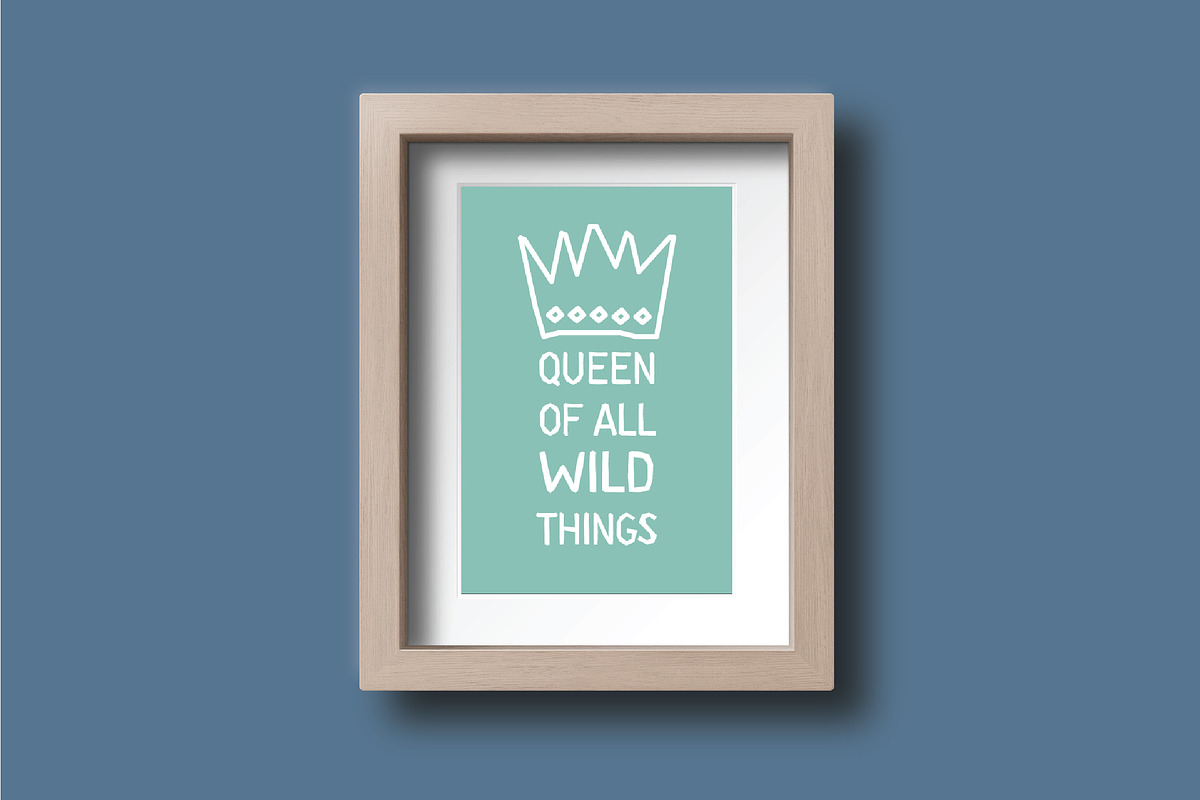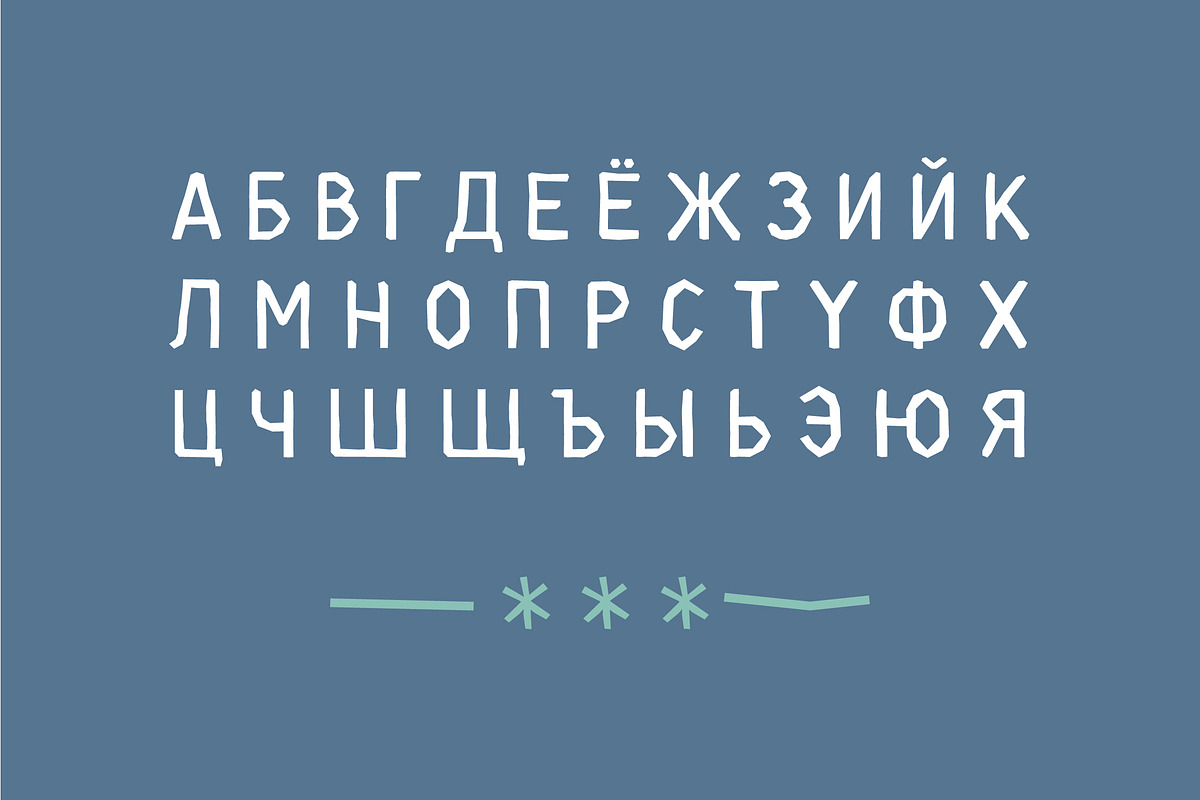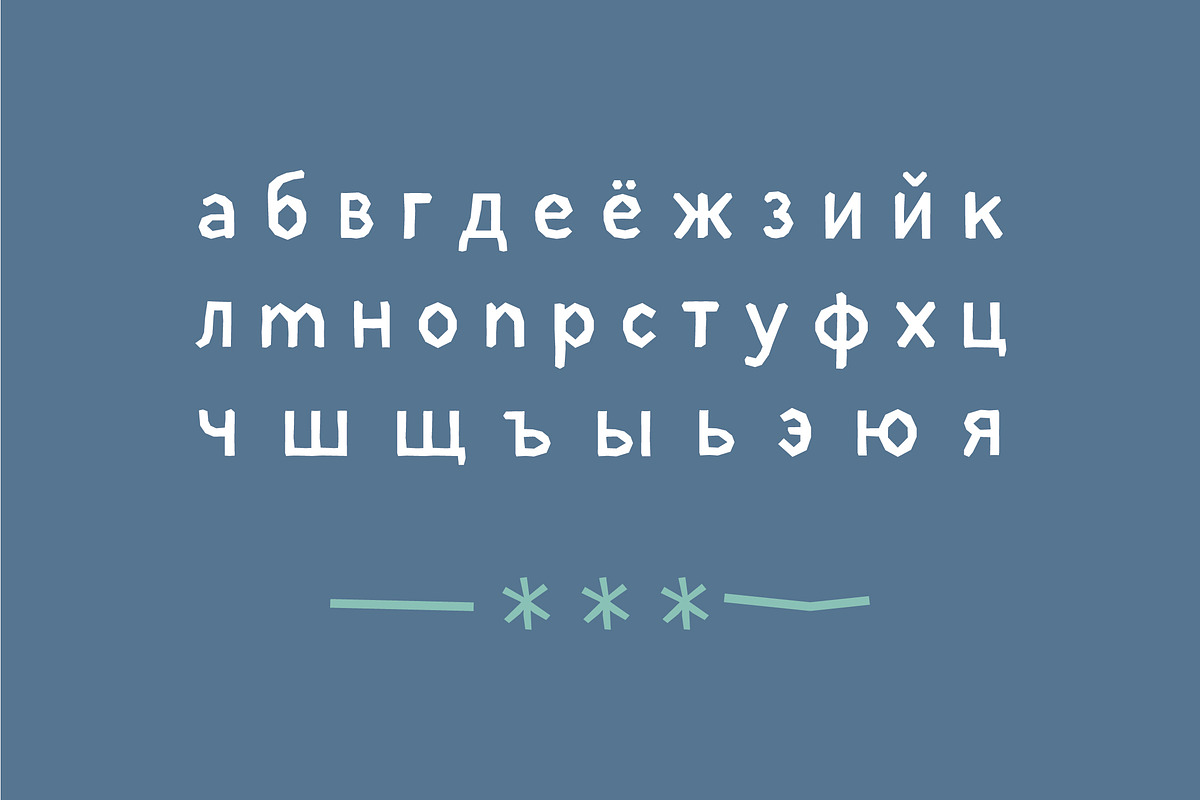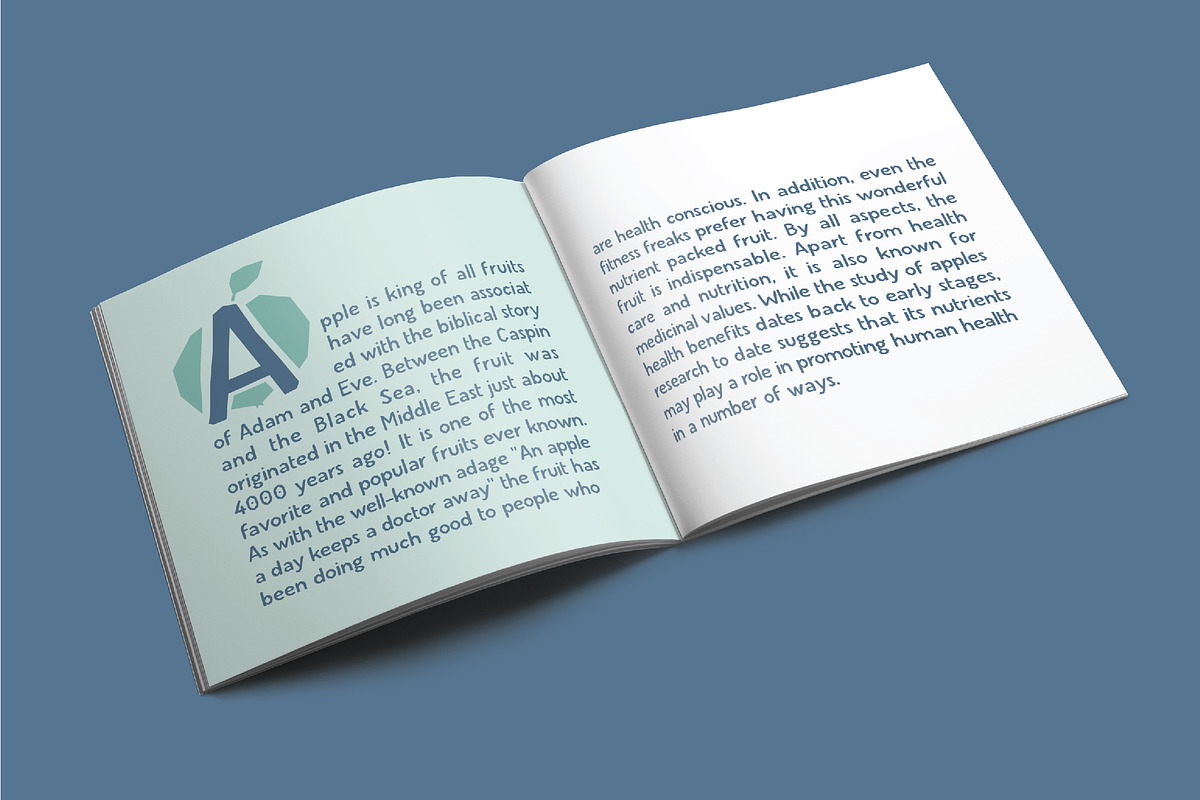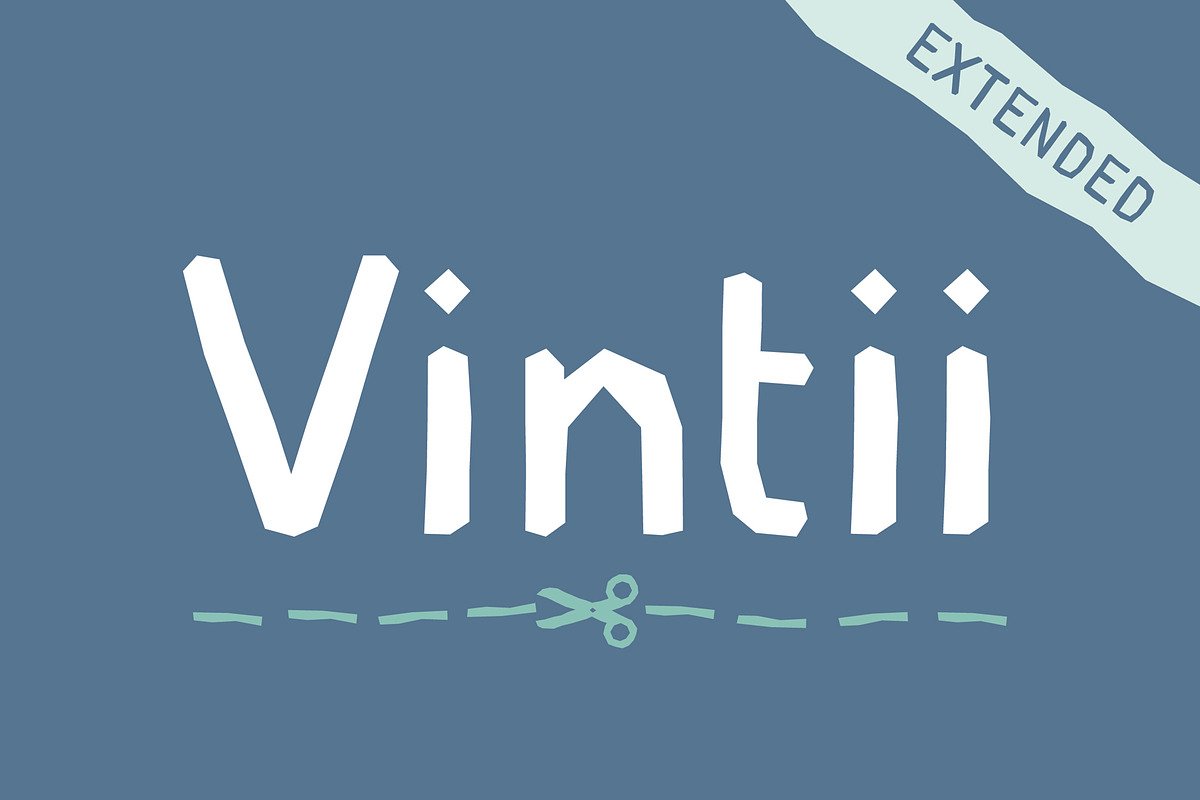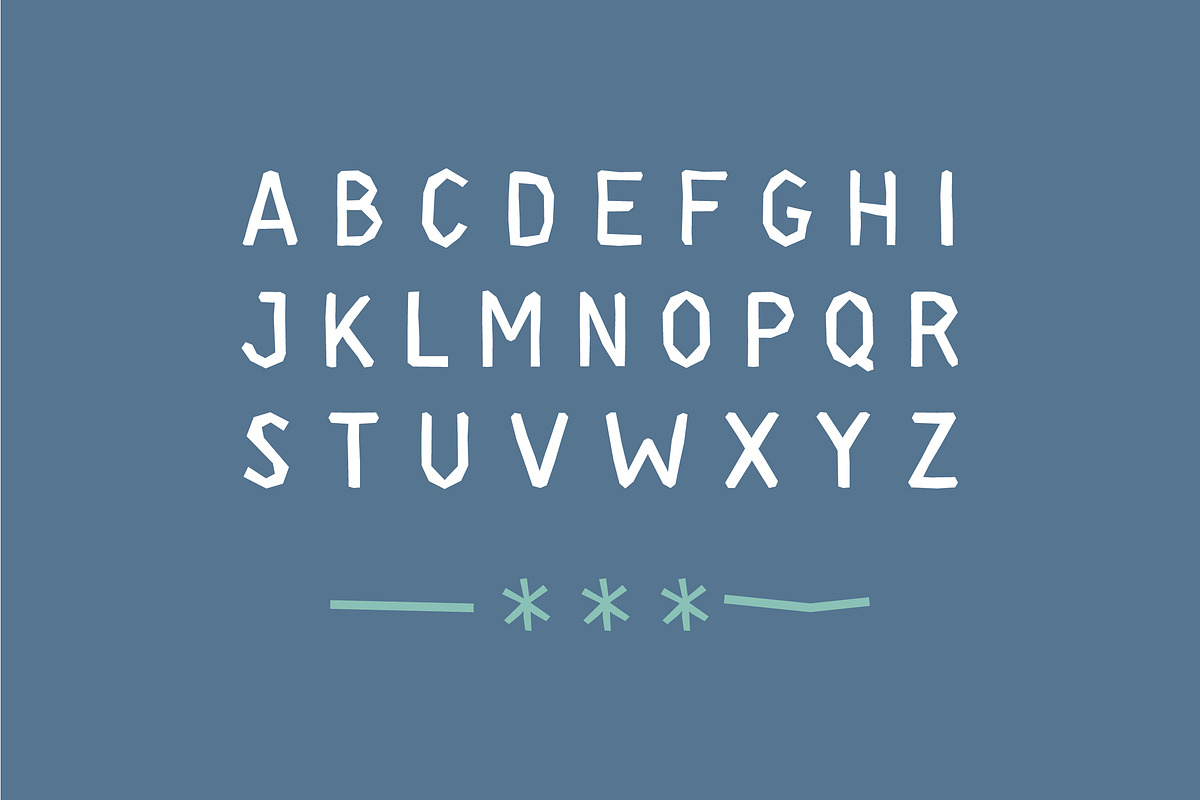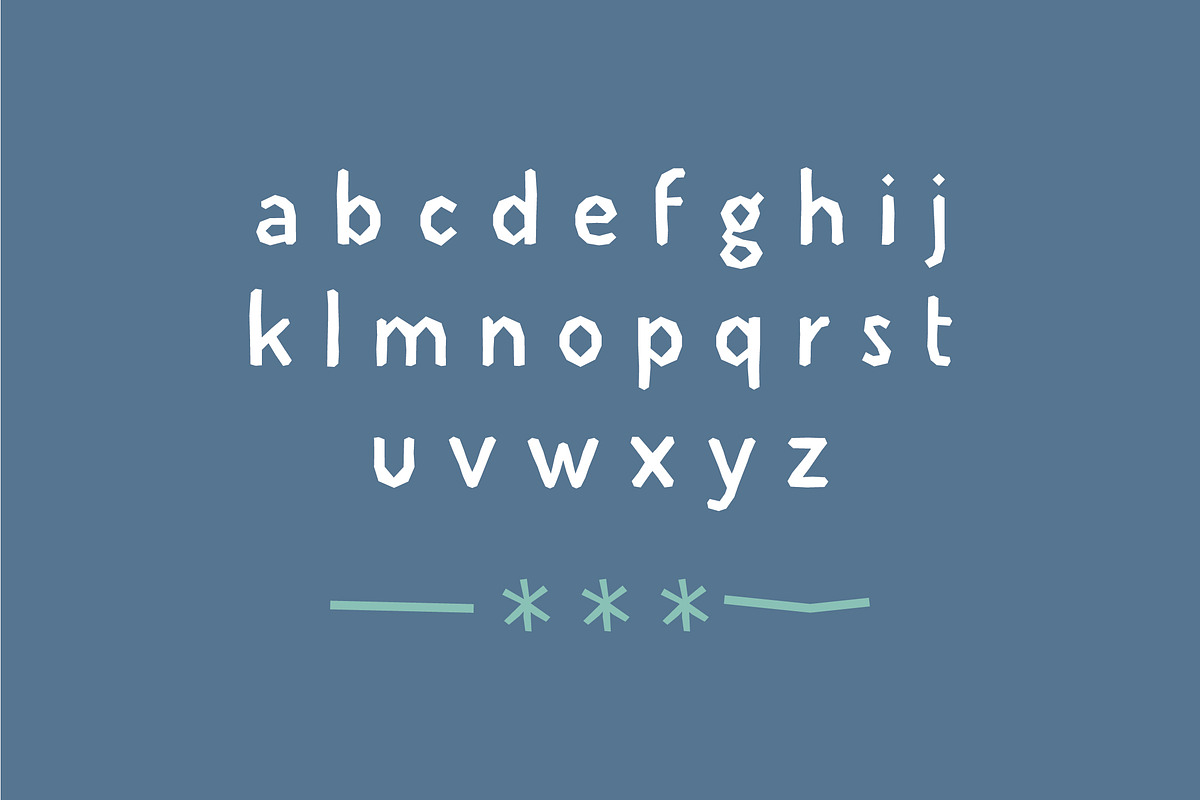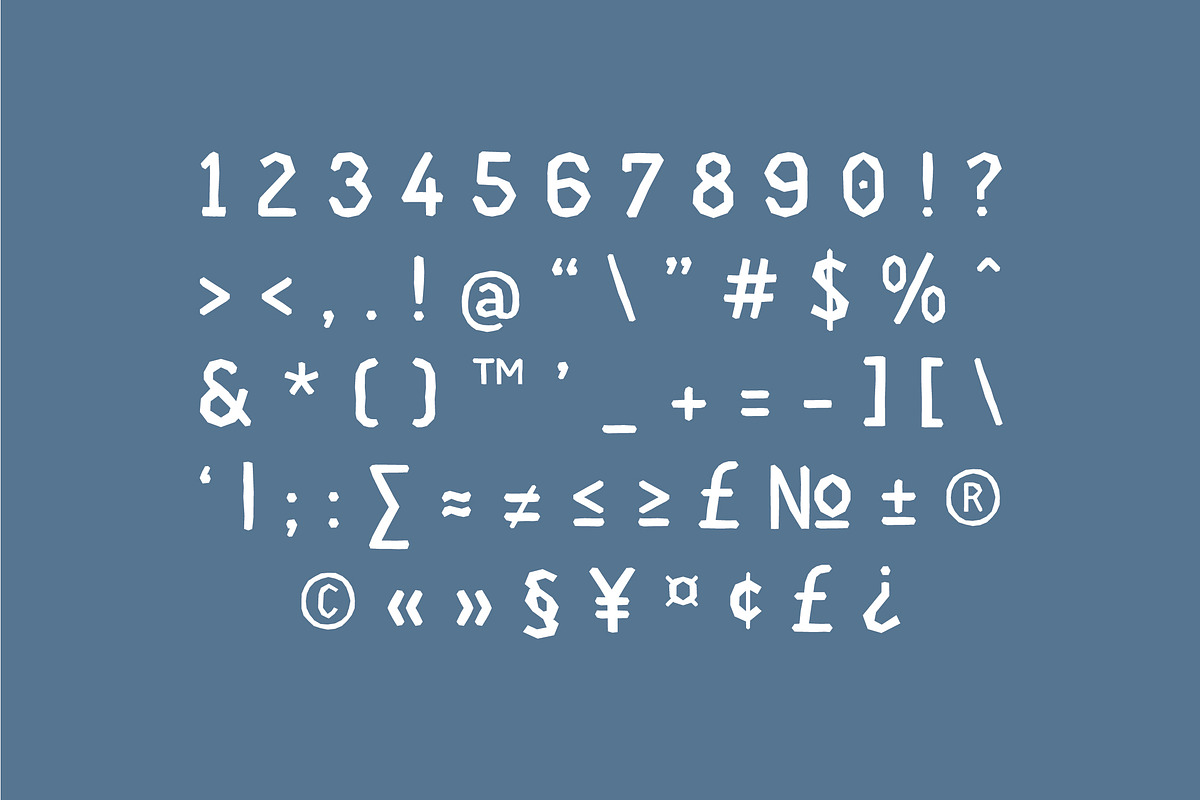
Vintii extended font
Vintii extended is decorative cut-out font. Inspiration for this font comes from paper and scissors - bold, fun and asymmetric letter forms. This font is great for headlines, logos, posters packaging and short description texts.
Vintii extended has uppercase and lowercase characters. Font includes latin, latin extended and cyrillic charachters.
Vintii extended font by Wild Ones fits naturally into Branding, posters, packaging, typography.